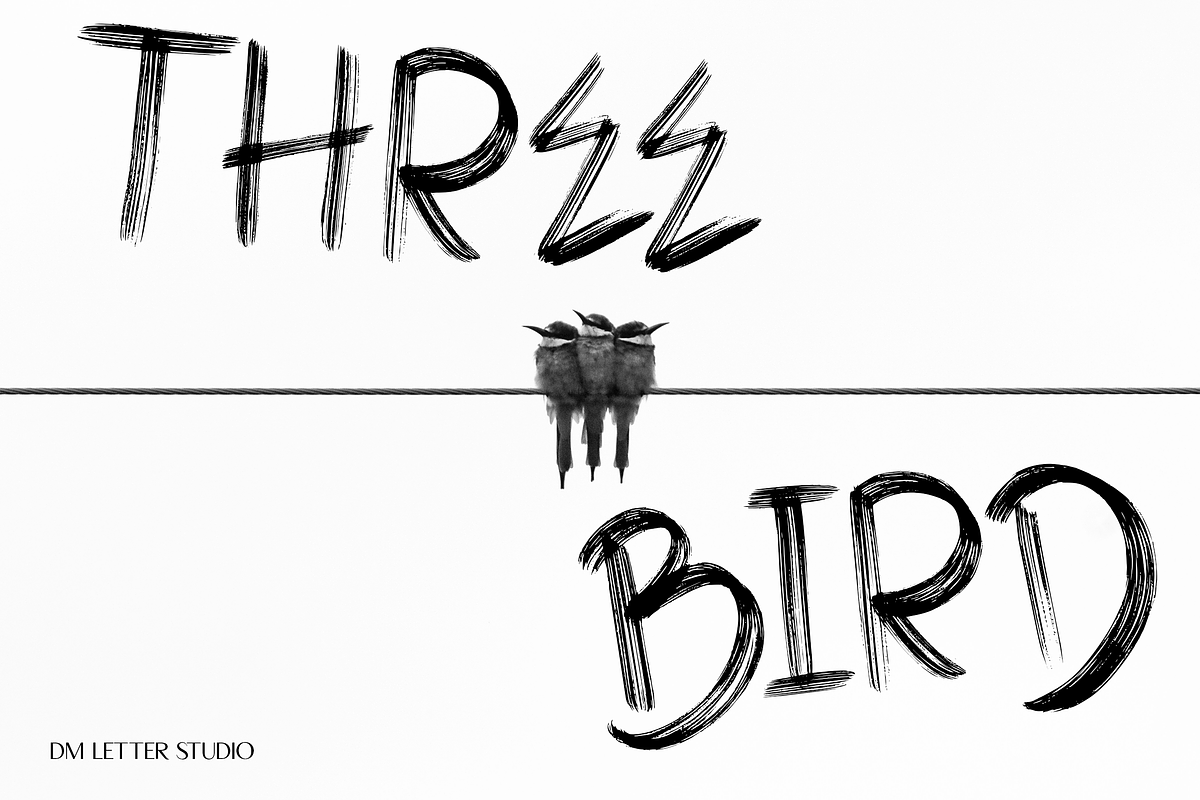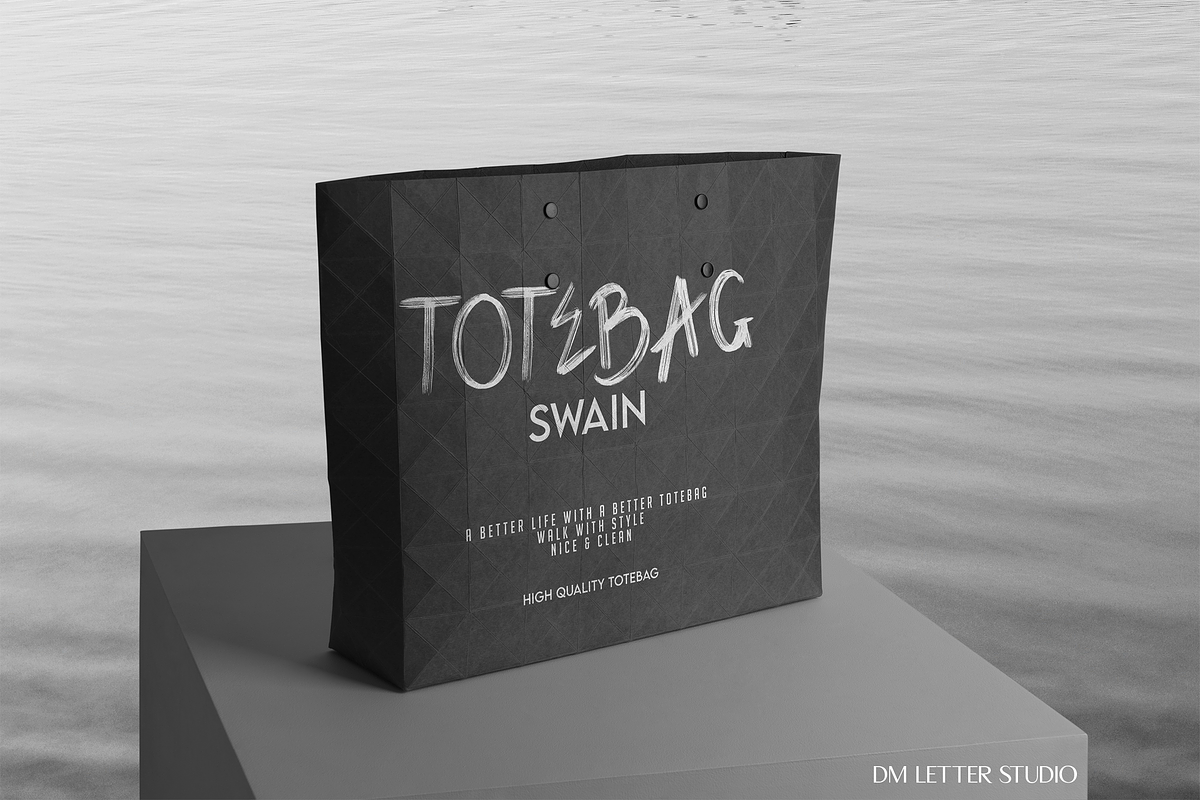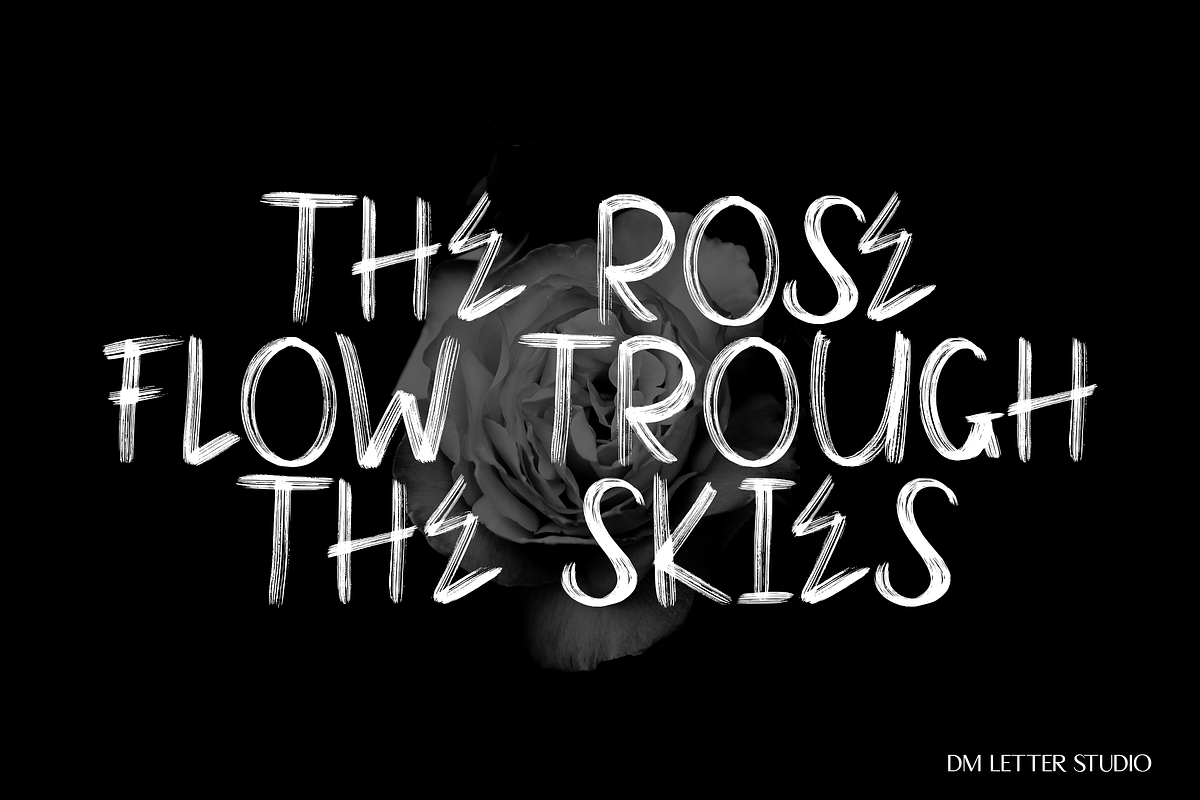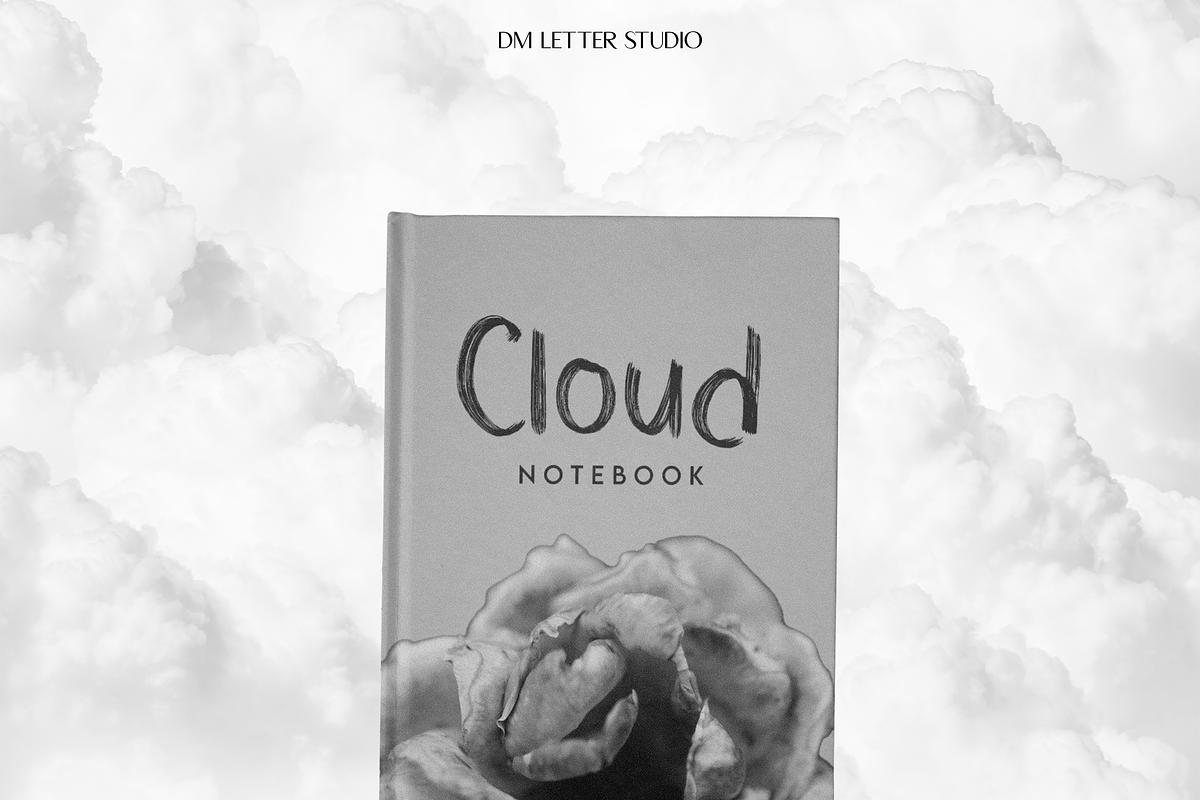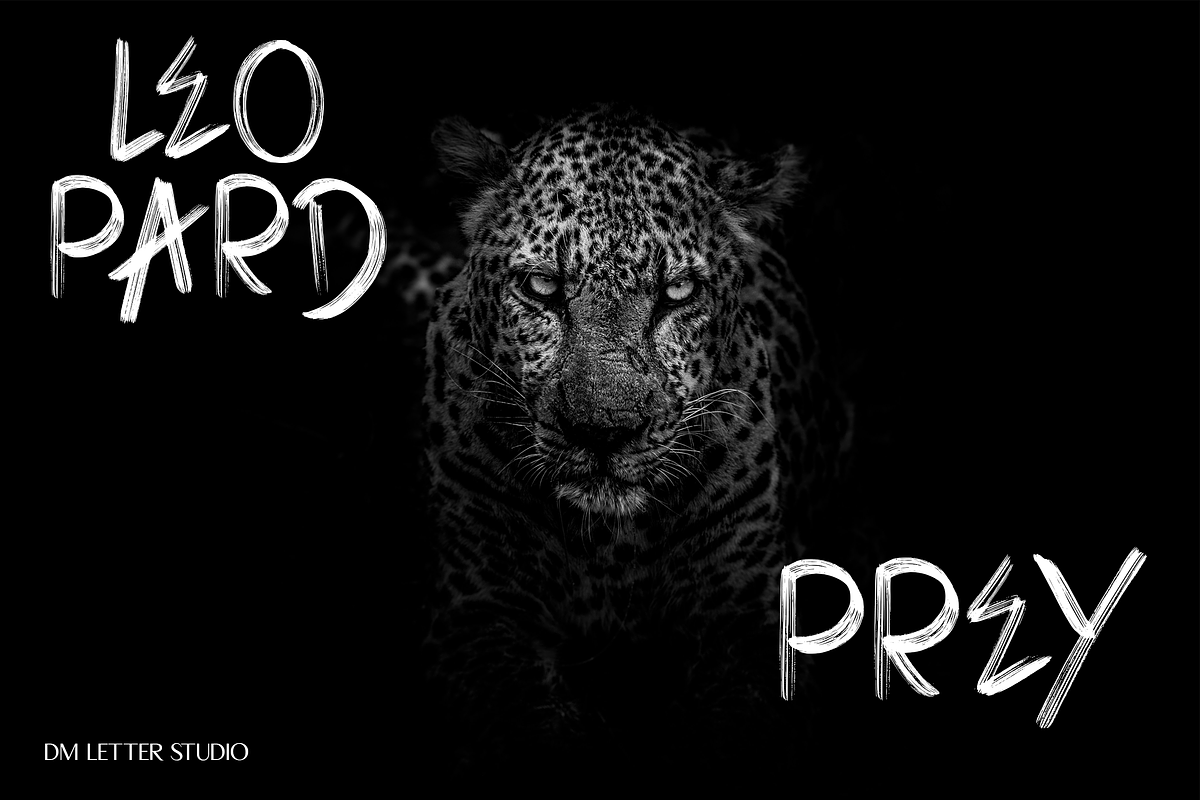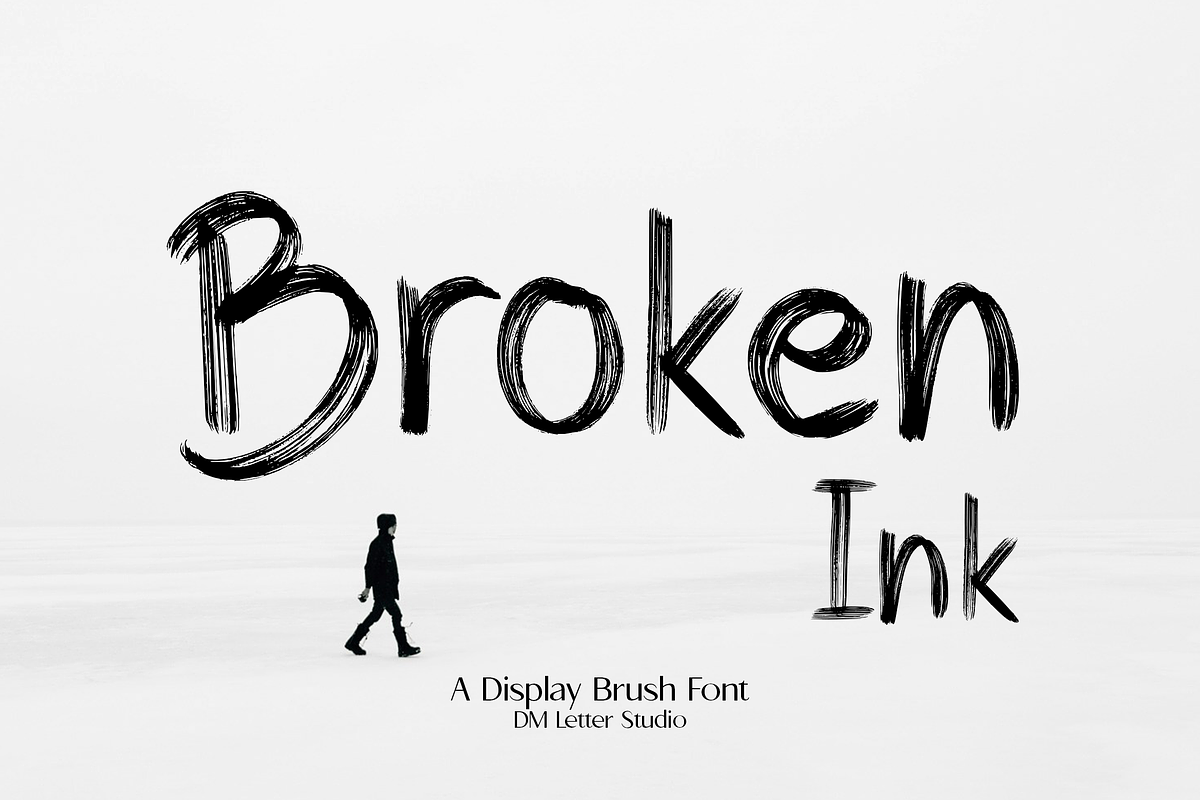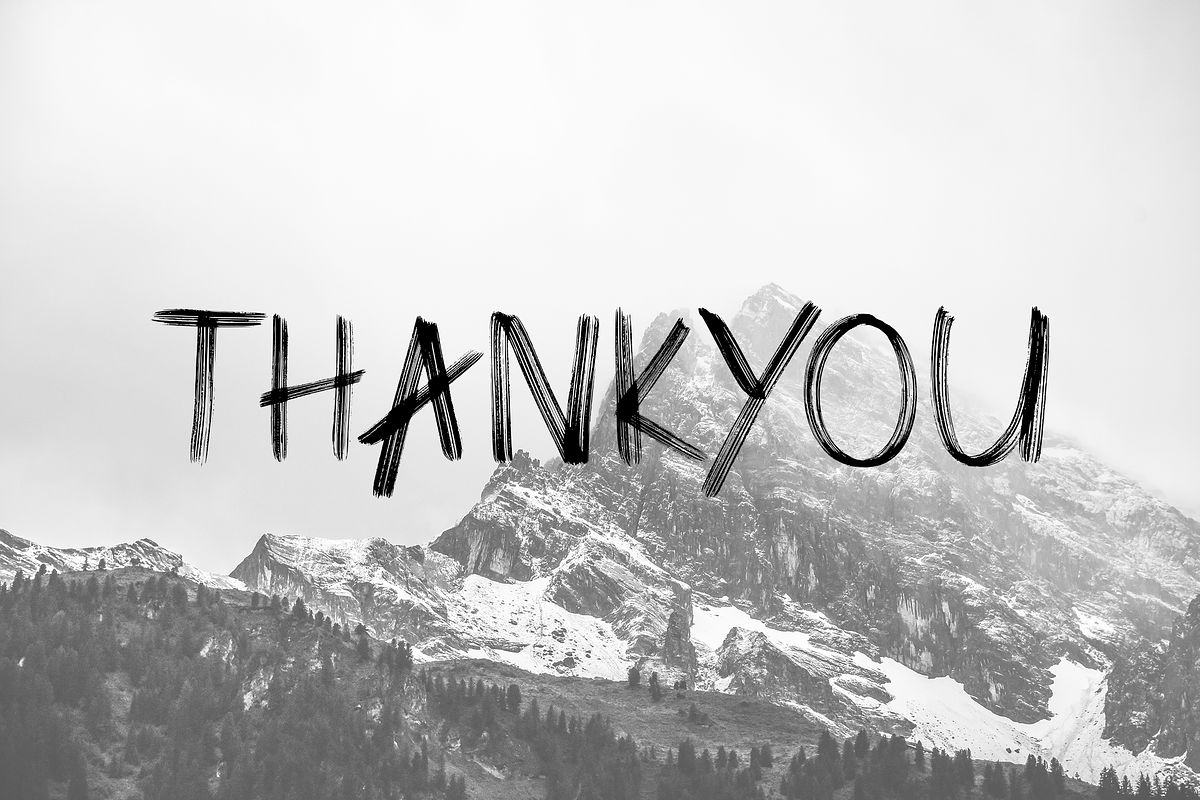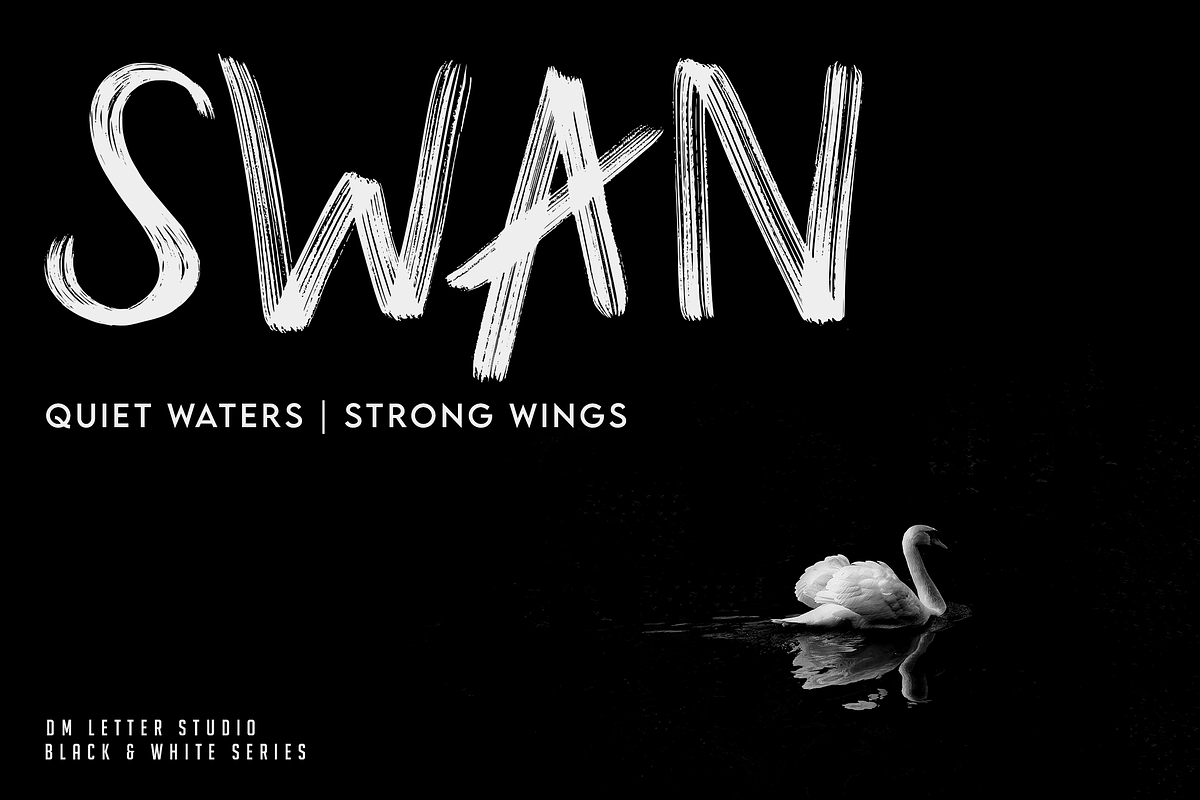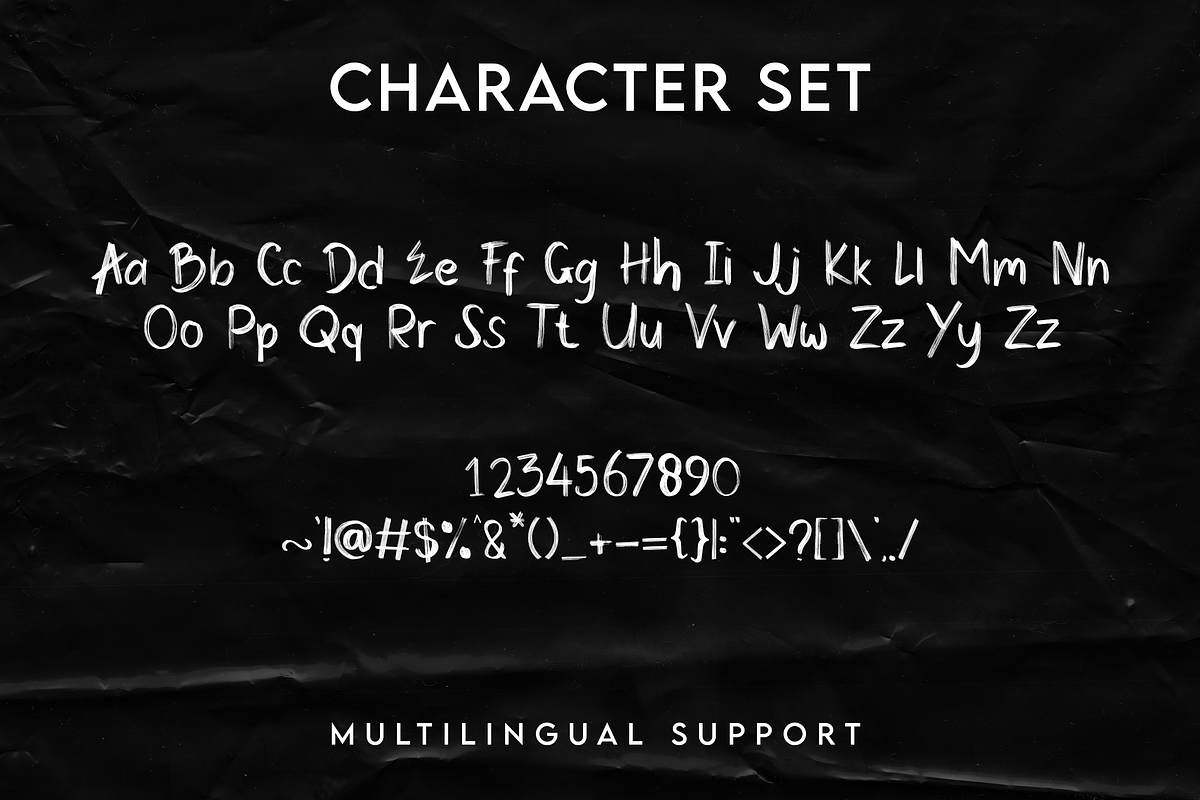
Broken Ink
Meet Broken Ink, the Display Brush Font
Broken Ink is a bold display brush font with rough energy and hand-painted attitude. It brings instant motion to headlines, logos, and promo designs. Strokes feel gritty and expressive, so your message lands fast. Because the texture stays intentional, it looks dynamic on screen and strong in print. Use it for streetwear branding, posters, album art, event flyers, social posts, packaging, and quote graphics. As a result, your designs look louder and more alive without extra effects.
Fast layouts with the Broken Ink font
Start with a short headline in Broken Ink and keep it tight. After that, add details in a simple supporting font for clarity. Because the strokes are strong, it works best with bigger sizes and confident spacing. In addition, try stacking words or mixing all-caps with lowercase for rhythm. Finally, lock in a repeatable palette like black & cream, charcoal & neon, or white & red to keep your collection consistent.
Creative uses and quick wins
Posters, flyers, and event promos
Streetwear logos, merch slogans, and hang tags
YouTube thumbnails, reels covers, and bold quote posts
Album covers, podcast art, and gaming headers
Uppercase, lowercase, numbers, punctuation
Brush-style texture for strong display type
Design tips for Broken Ink
Keep your headline short so it hits harder. Also, give it room to breathe with generous margins. For extra punch, add a subtle shadow or a rough paper texture behind it. However, for cutting jobs like vinyl, go a bit larger and avoid tiny details. Finally, export at 300 DPI for print and at 2× size for web so edges stay crisp everywhere.